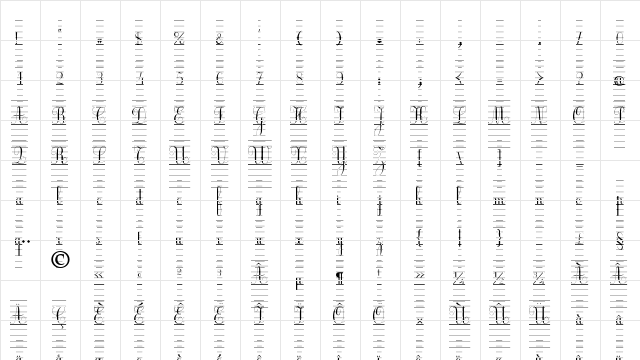
Ecolier_lignes_court Regular Font Preview
Ecolier_lignes_court Regular
Ecolier_lignes_court Regular Font Details
Design Context for Ecolier_lignes_court Typeface
Ecolier_lignes_court is a composed and adaptable typeface that performs quietly and consistently across a wide range of design contexts.